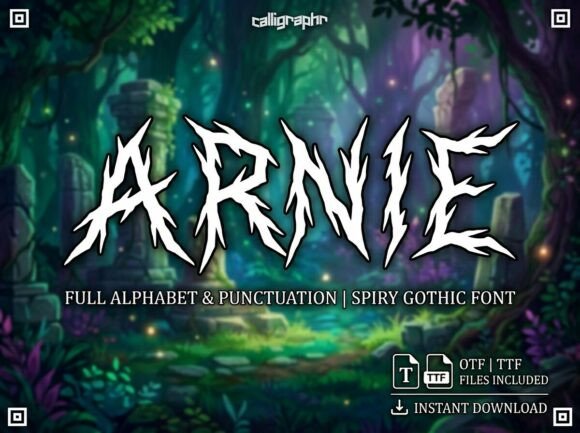
Unleash the Dark and Defiant Spirit with Arnie Font
In the realm of typography, few fonts capture the essence of a “dark-and-defiant” soul as effectively as Arnie. This sharp display typeface is designed to evoke a sense of rebellion and edginess, making it the perfect choice for designers and crafters looking to add a touch of boldness to their projects. With its aggressive, jagged letterforms and rhythmic, hand-drawn “thorny” protrusions, Arnie is a font that demands attention and inspires curiosity.
The Inspiration Behind Arnie
Arnie’s design is deeply rooted in the aesthetics of heavy metal culture and modern dark fantasy. The font’s creator sought to bridge the gap between these two seemingly disparate worlds, resulting in a unique and captivating typeface that is both heavy and elegant. The result is a font that is perfect for independent alternative apparel labels, gothic horror book titles, edgy e-sports team logos, and high-impact social media headers.
Key Features of Arnie Font
So, what sets Arnie apart from other display typefaces? Here are a few key features that make this font truly special:
- Aggressive, jagged letterforms: Arnie’s letters are designed to be bold and attention-grabbing, with a sharp, jagged quality that adds to the font’s overall sense of edginess.
- Rhythmic, hand-drawn “thorny” protrusions: One of the most distinctive features of Arnie is its use of hand-drawn “thorny” protrusions, which add a touch of organic, hand-crafted elegance to the font.
- Medium structural weight: Arnie’s medium weight makes it versatile enough to be used in a wide range of applications, from bold headlines to more subtle design elements.
- Piercing personality: Perhaps most importantly, Arnie has a piercing personality that is impossible to ignore. This font is designed to make a statement, and it’s perfect for designers and crafters who want to add a touch of boldness to their projects.
Use Cases for Arnie Font
So, what kinds of projects is Arnie best suited for? Here are a few ideas to get you started:
- Independent alternative apparel labels: Arnie’s bold, edgy aesthetic makes it a perfect fit for independent alternative apparel labels looking to make a statement.
- Gothic horror book titles: For authors and publishers looking to create a sense of foreboding and dread, Arnie is the perfect choice.
- Edgy e-sports team logos: Arnie’s bold, aggressive aesthetic makes it a great fit for e-sports teams looking to create a strong, memorable brand identity.
- High-impact social media headers: Whether you’re looking to create a bold, eye-catching header for your social media profiles or want to add a touch of edginess to your online presence, Arnie is a great choice.
Tips for Using Arnie Font Effectively
While Arnie is a versatile font that can be used in a wide range of applications, here are a few tips for using it effectively:
- Use it sparingly: Due to its bold, attention-grabbing nature, it’s best to use Arnie sparingly. A little bit of this font can go a long way in adding visual interest to your design.
- Pair it with contrasting fonts: To create visual interest and add depth to your design, try pairing Arnie with contrasting fonts that are more elegant or refined.
- Experiment with different colors: Arnie looks great in a wide range of colors, from bold and bright to dark and muted. Experiment with different colors to find the one that works best for your design.
In conclusion, Arnie is a sharp display typeface that is perfect for designers and crafters looking to add a touch of boldness and edginess to their projects. With its aggressive, jagged letterforms and rhythmic, hand-drawn “thorny” protrusions, Arnie is a font that demands attention and inspires curiosity. Whether you’re looking to create a bold, eye-catching header for your social media profiles or want to add a touch of edginess to your independent alternative apparel label, Arnie is the perfect choice.